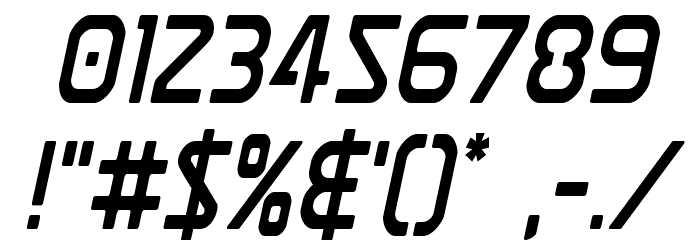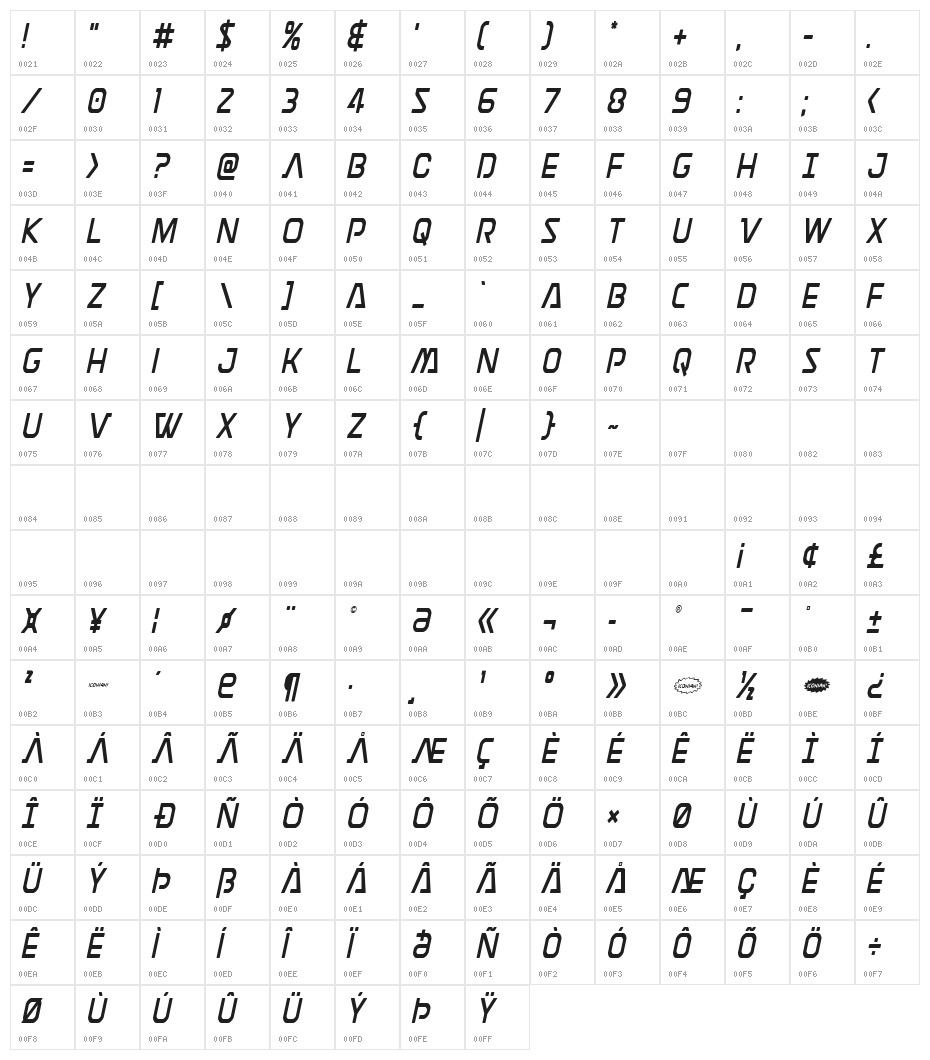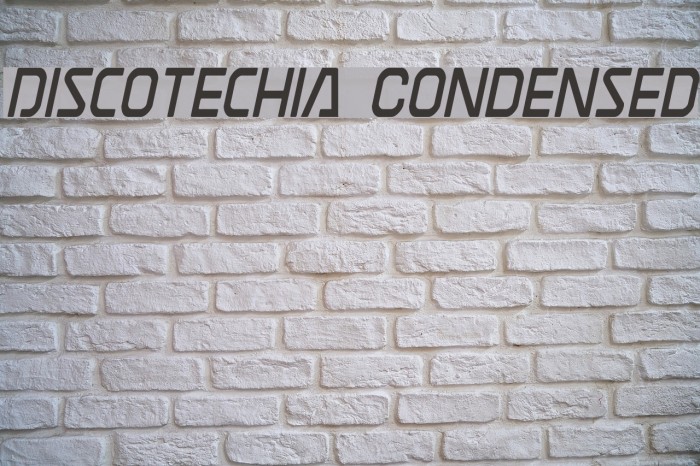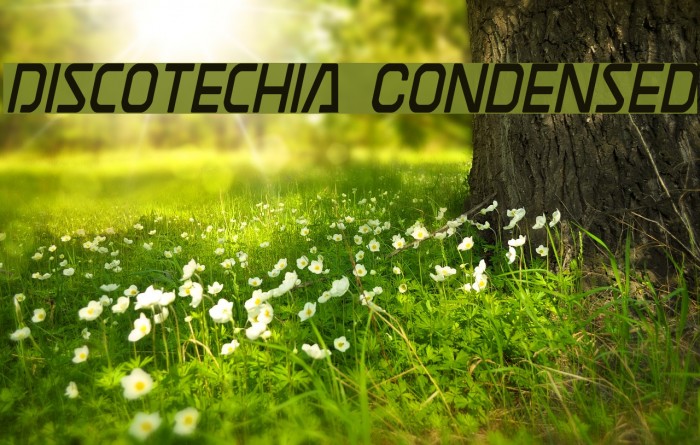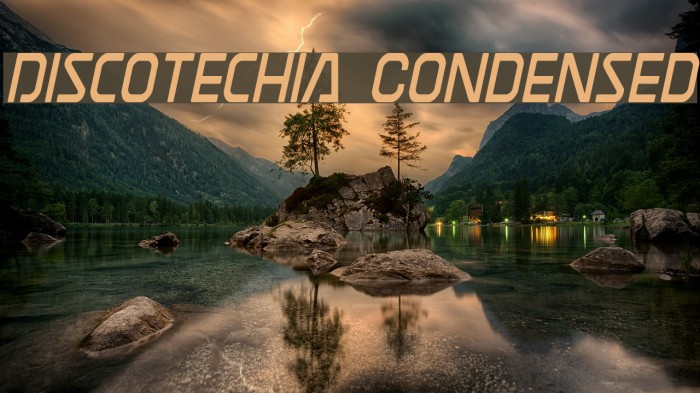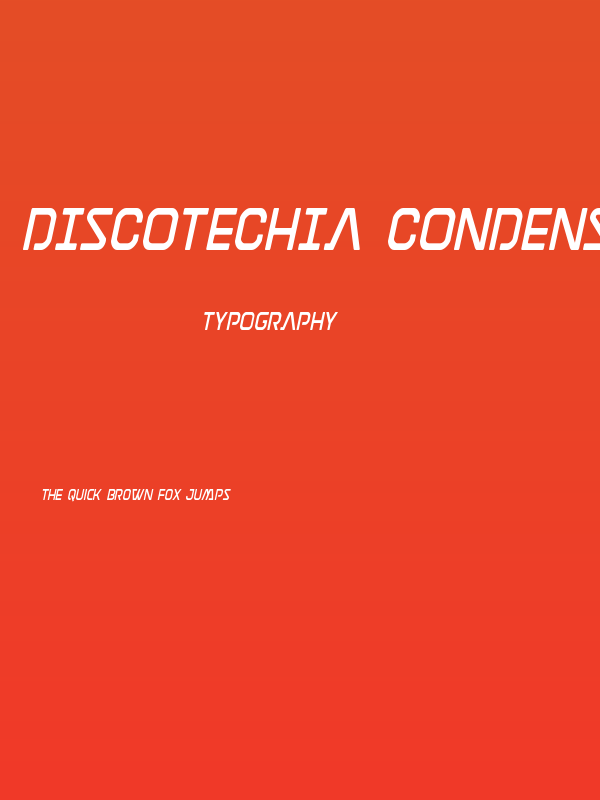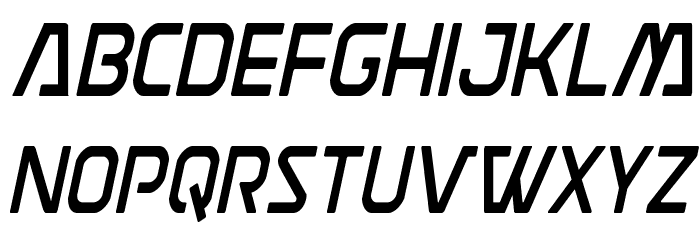
Discotechia Condensed Font
Discotechia Condensed Description
This font features a modern, futuristic design with a condensed structure and a slight slant, giving it a dynamic and energetic feel. The characters are bold and geometric, with sharp angles and clean lines that convey a sense of speed and motion. The uppercase and lowercase letters maintain a consistent style, while the numerals and special characters complement the overall aesthetic. The font's condensed width allows for efficient use of space, making it ideal for headlines and display purposes where impact is essential.
Use CaseHeadlines, Logos, Display
Proposed ProjectsIdeal for use in technology branding, sports team logos, futuristic event posters, and video game titles.